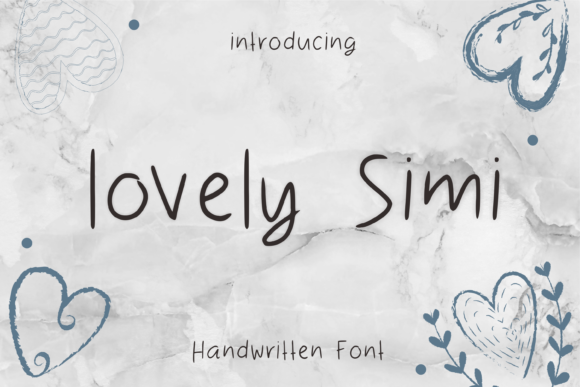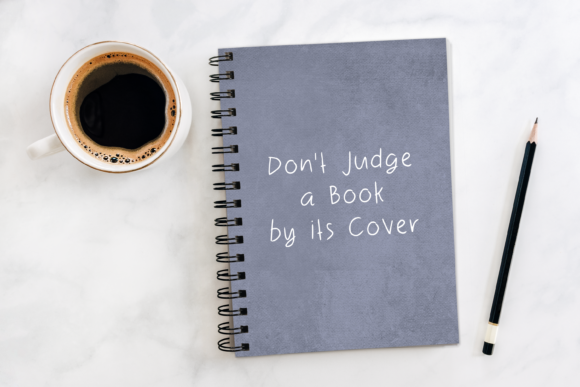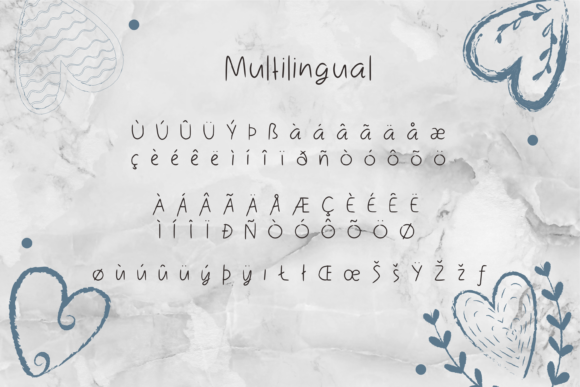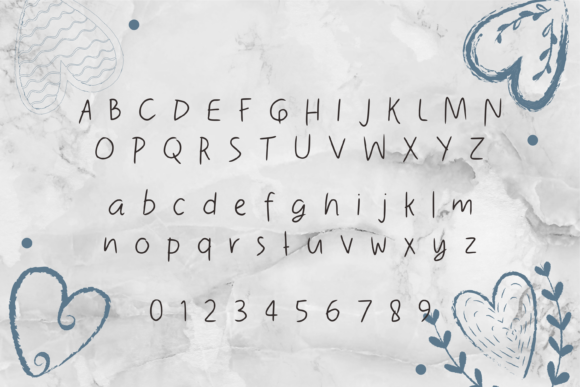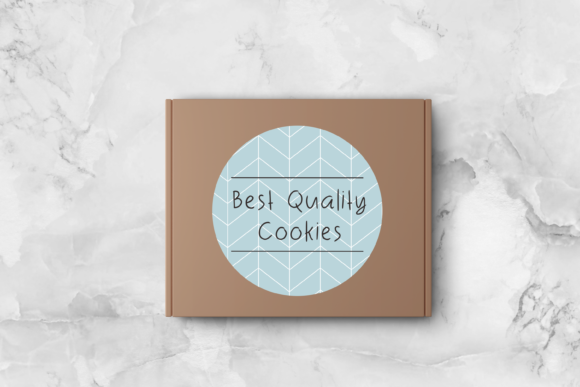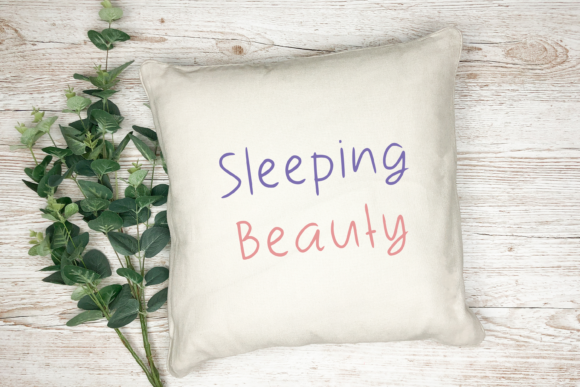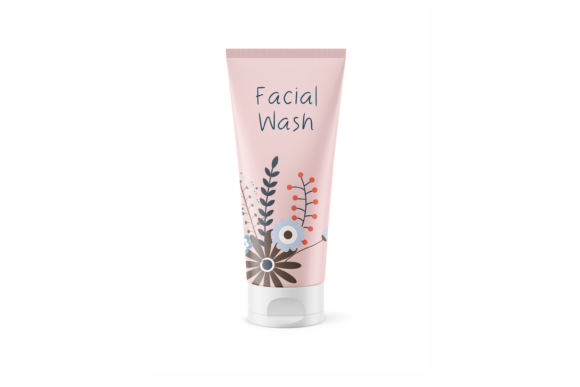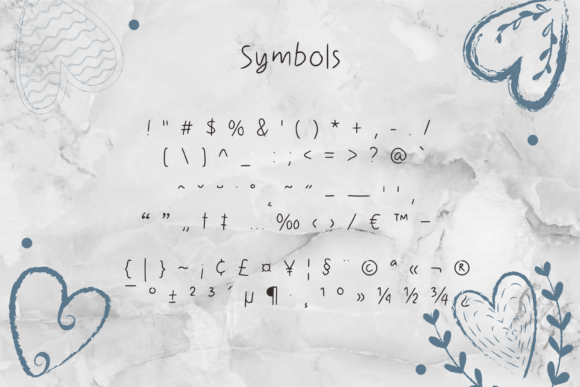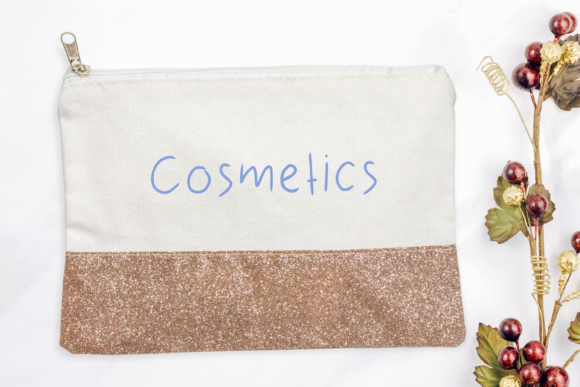
Script Fonts Lovely Simi Font 0 140 FacebookTwitterPinterestWhatsApp 1 of 10 Lovely Simi Font Poster 2... Lovely Simi Font Poster 3... Lovely Simi Font Poster 4... Lovely Simi Font Poster 5... Lovely Simi Font Poster 6... Lovely Simi Font Poster 7... Lovely Simi Font Poster 8... Lovely Simi Font Poster 9... Lovely Simi Font Poster 10... About Lovely Simi Font Lovely Simi is a simple and dainty handwritten font. Its natural and unique style makes it incredibly fitting to a large pool of designs. DOWNLOAD NOW